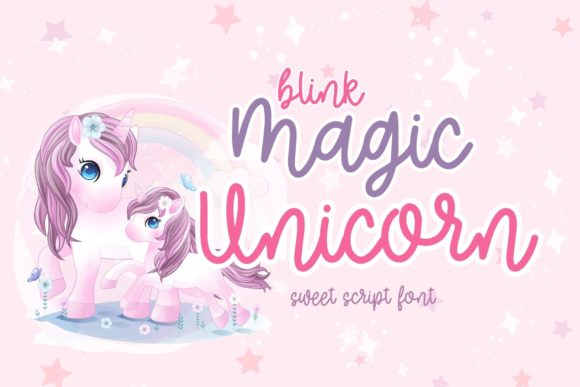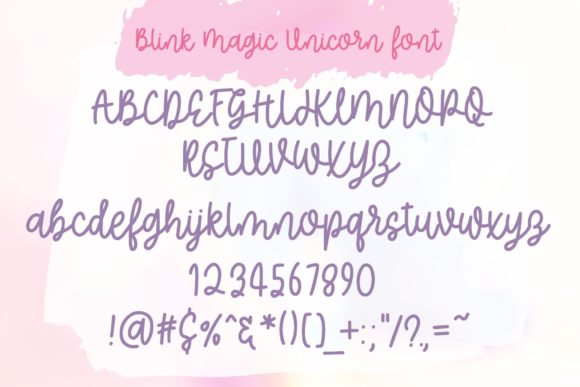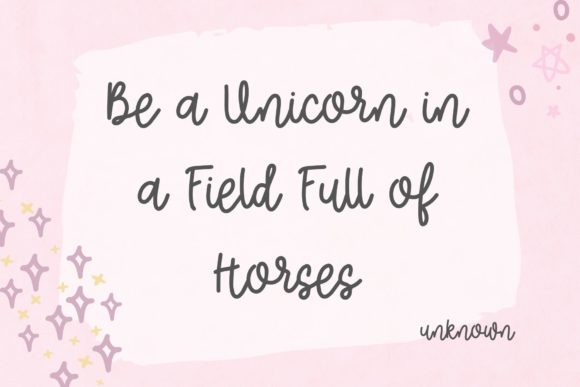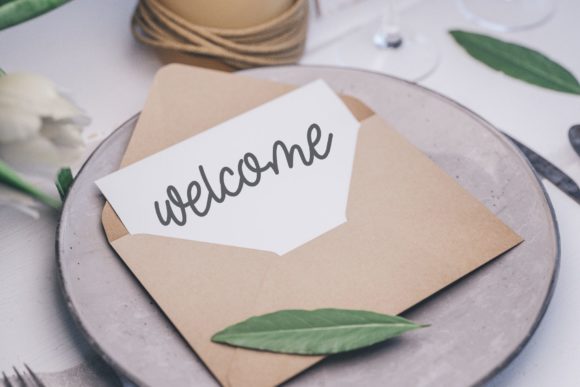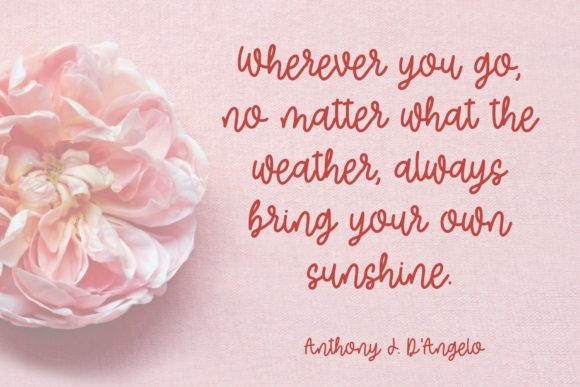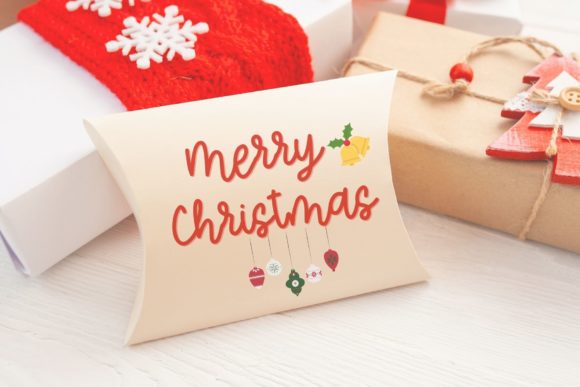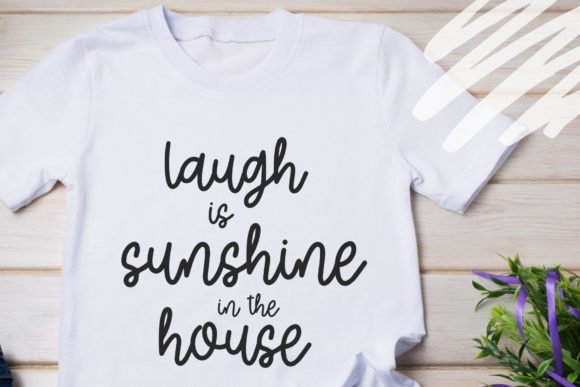
Blink Magic Unicorn Font
About Blink Magic Unicorn Font
Blink Magic Unicorn is a sweet and friendly handwritten font. Its natural and unique style makes it incredibly fitting to a large pool of designs. The only limit is your imagination!